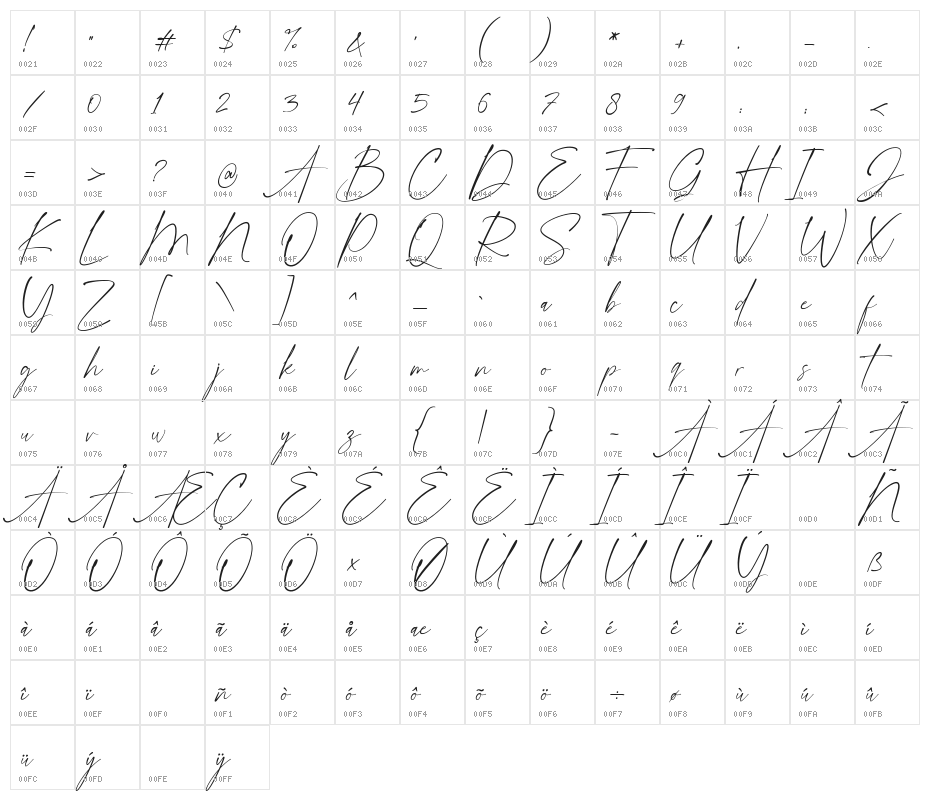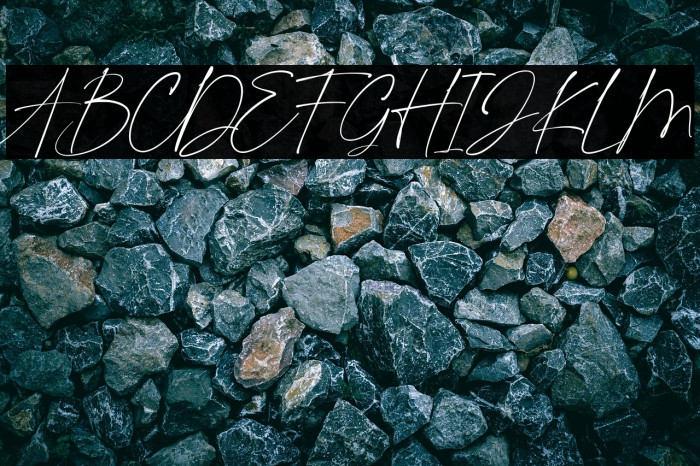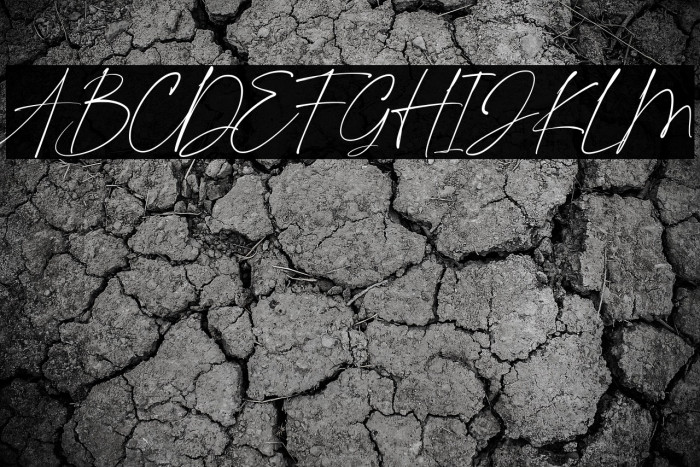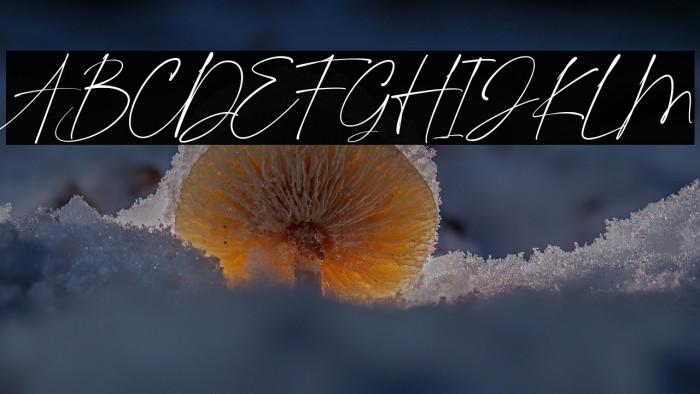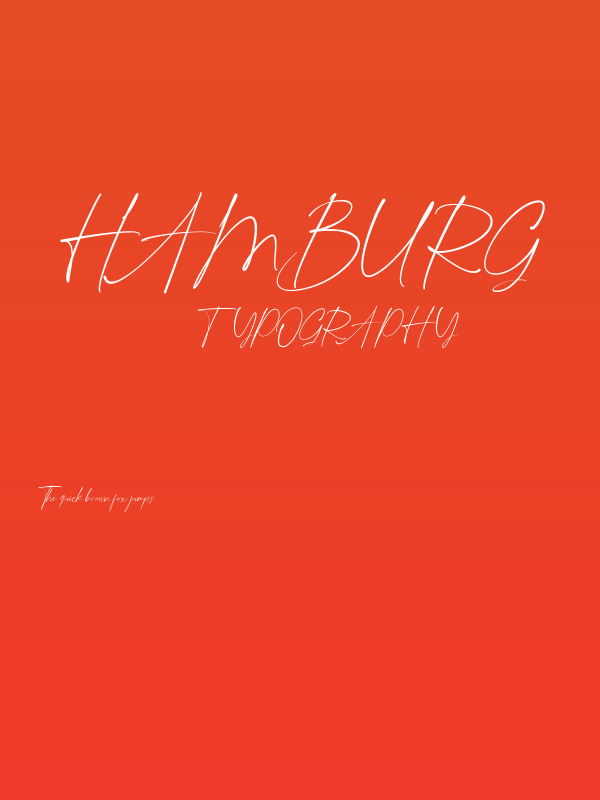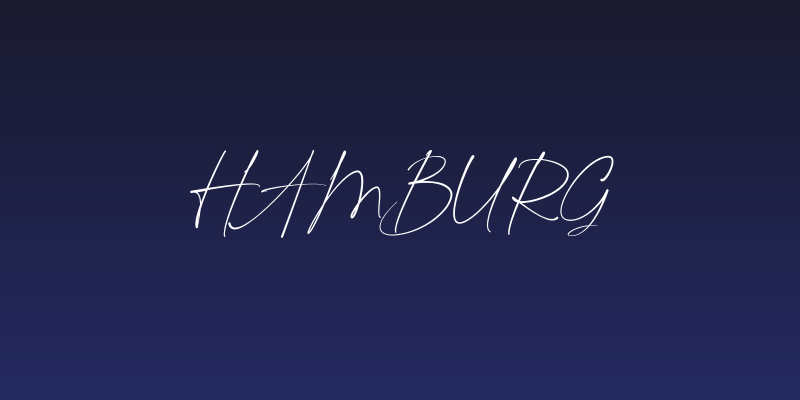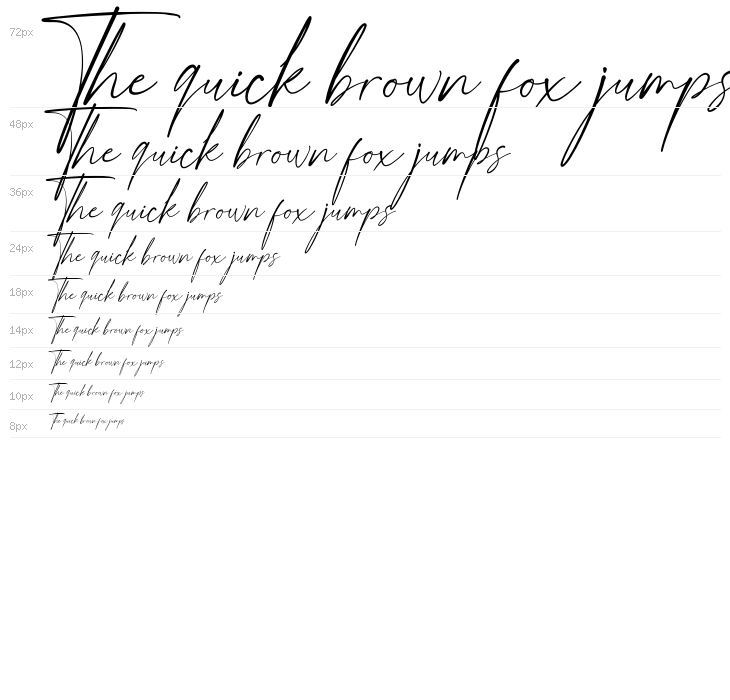
Hamburg Font
Hamburg Description
This font exhibits a fluid and elegant handwritten style, characterized by its sweeping curves and dynamic strokes. The uppercase letters are tall and slender, with a slight slant that adds a sense of motion and grace. The lowercase letters maintain a consistent flow, with some characters extending below the baseline, enhancing the script's organic feel. The numerals are well-integrated, matching the overall aesthetic with their smooth, continuous lines. Special characters are thoughtfully designed, complementing the alphabet with their distinctive yet harmonious appearance. This font's artistic flair makes it suitable for creative and expressive projects.
| Proposed Projects | Ideal for wedding invitations, personal branding, artistic posters, and greeting cards. |